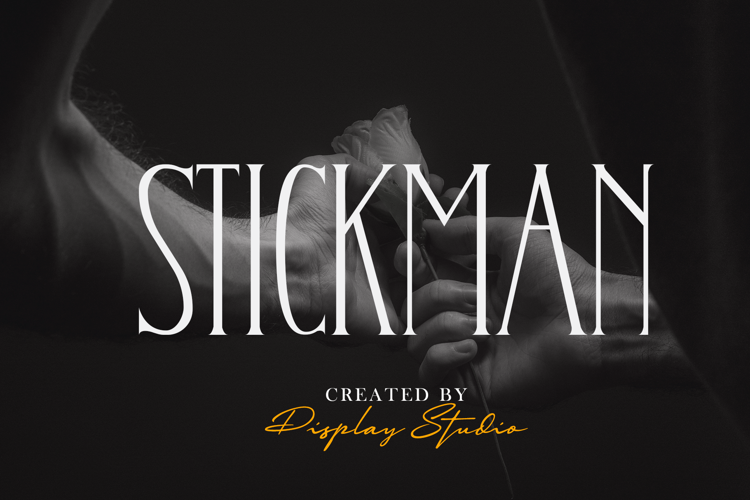
Stickman Font
5 font family styles
Clean Fancy Style
Rough Fancy Style
Sans Serif Style
Serif Style
Slab Serif Style
Introducing our new release, Stickman Font. This typeset is perfect for brand logo, invitations, greeting card, or even any kind of project. With multilingual feature and style variations, this typeface would further enhance the aestethical aspect of your work.